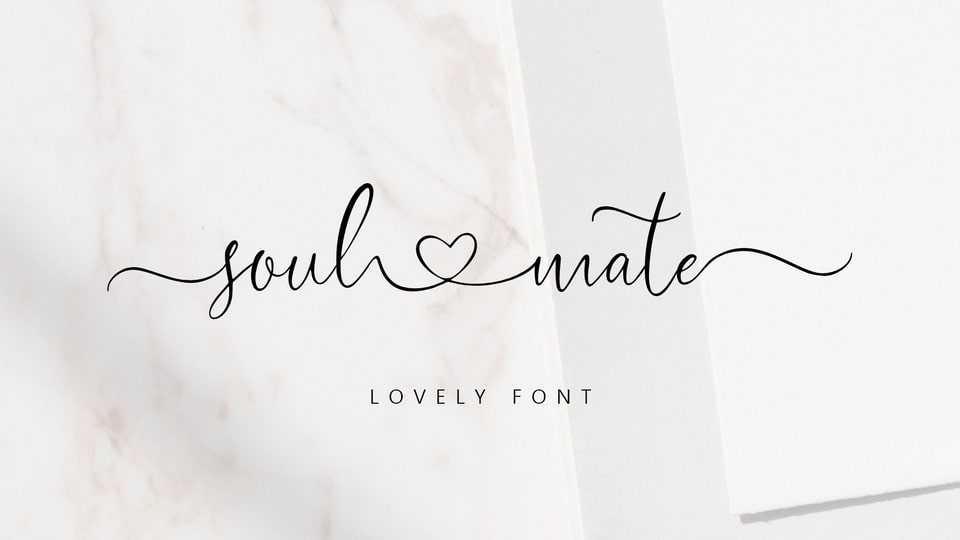
Download Soul and Mate font, an elegant script with a classic touch. Its characters feature fine details and high contrast between thick and thin lines, giving it a luxurious and sophisticated look.